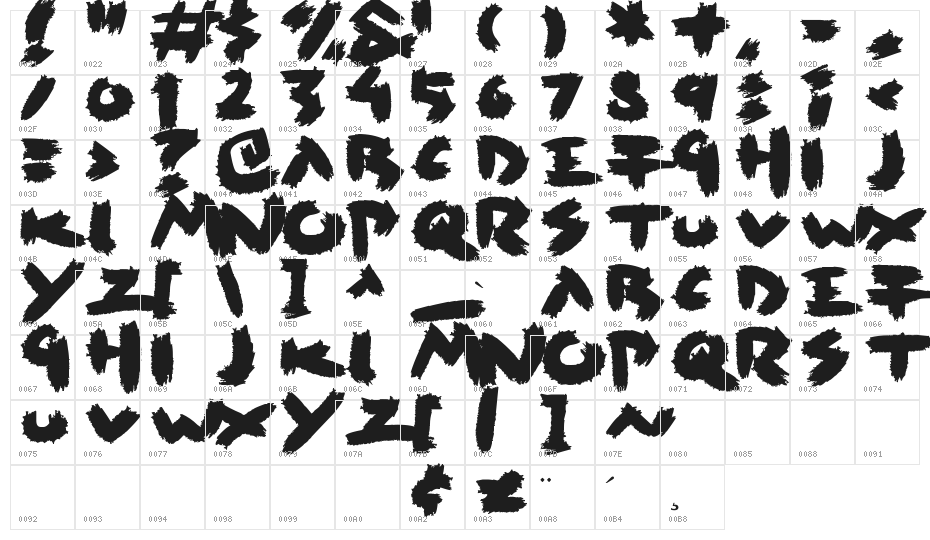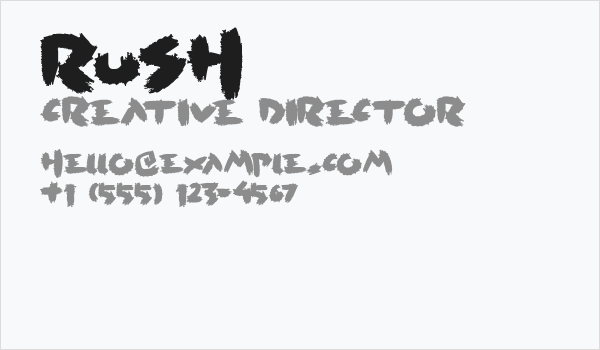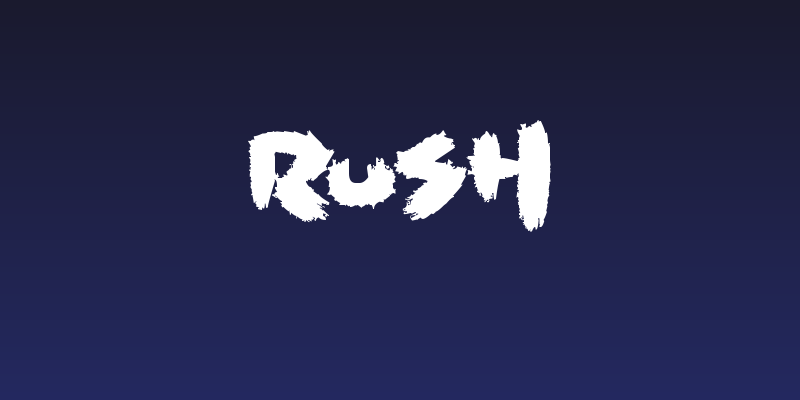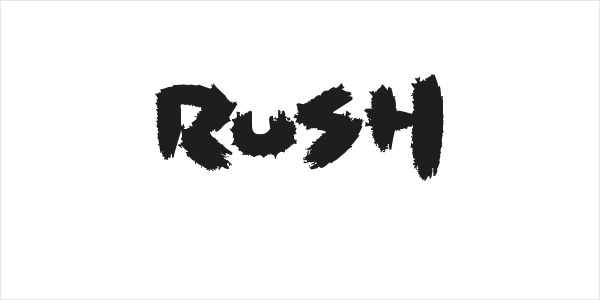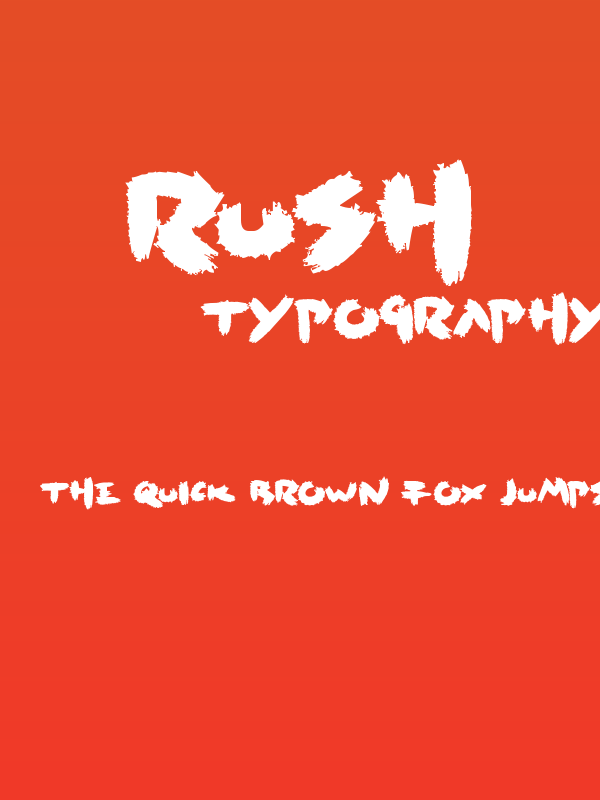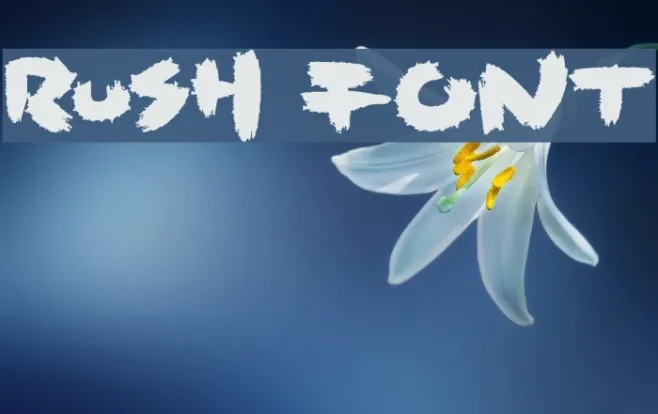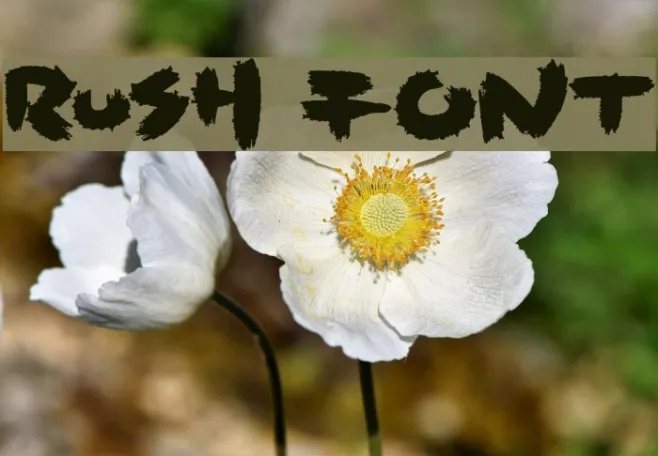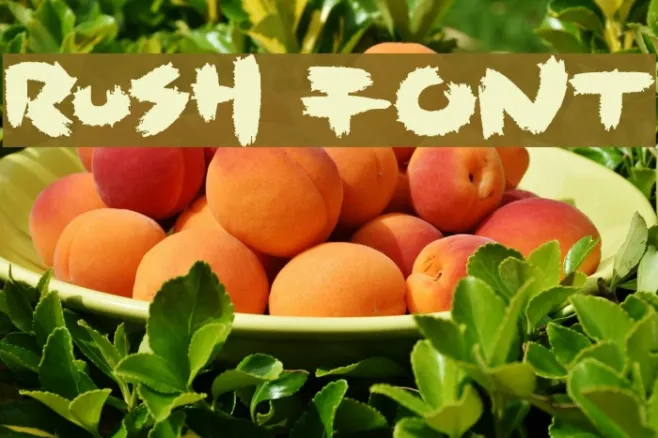
Rush Font
Rush Description
This font features a bold and dynamic brushstroke style, giving it a rugged and energetic appearance. The characters are irregular and jagged, with a hand-painted look that conveys a sense of movement and spontaneity. The uppercase and lowercase letters maintain a consistent style, with thick strokes and rough edges that create a visually striking effect. The numbers and special characters follow the same aesthetic, ensuring a cohesive look across all glyphs. This font's unique style makes it ideal for projects that require a bold and artistic touch.
| Overall Style | Modern, Artistic |
| Proposed Projects | Ideal for posters, album covers, graffiti art, and branding that requires a bold, artistic touch. |